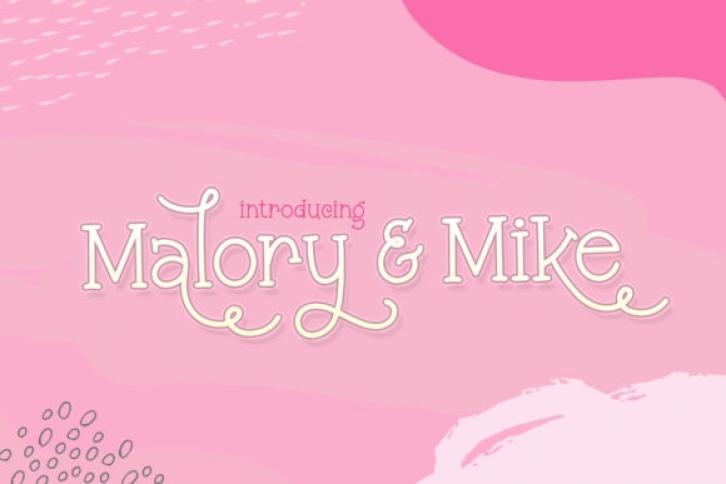
Malory and Mike is a dreamy display font that is filled with romantic swirls. When the two fonts are combined together it will make your design truly unique!